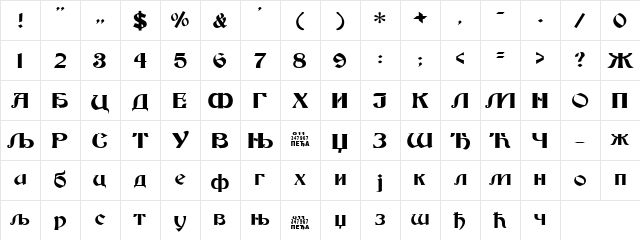
C_Becker Normal Free Font
C_Becker Normal
Design Context for C_Becker
C_Becker is a composed and adaptable typeface that performs quietly and consistently across a wide range of design contexts.